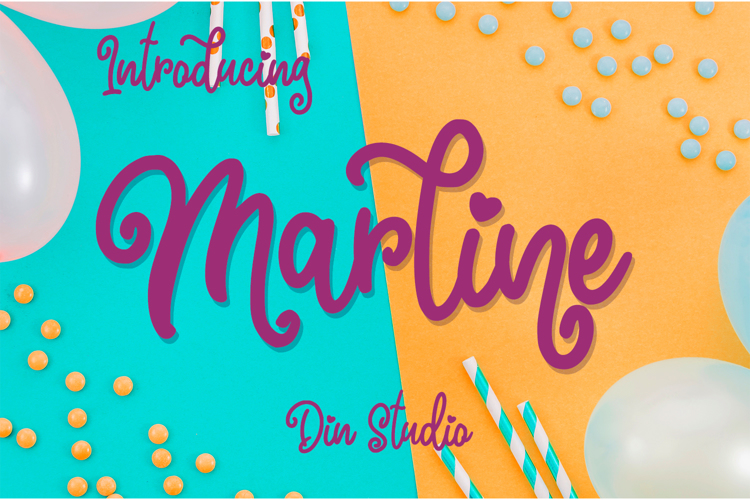
Marline Font
About Marline Font
Marline font. Being made from a chic monoline, this font will make your designs more beautiful. It is surely suitable for any designs, like book covers, signs, t-shirt printings, etc.
Features include:
• Multilingual Supports
• PUA Encoded
• Numerals and Punctuations